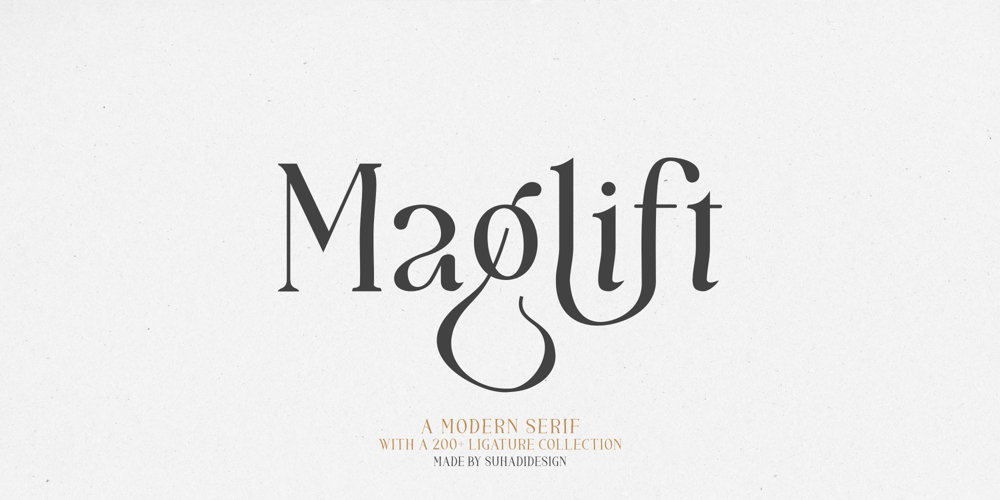
Maglift Font Family was designed by ahmad suhadi and published by suhadidesign. Maglift contains 1 styles and family package options. Maglift serif 200+ ligature collectionsHi ladies and gentlemen!Due to the popularity of the market for modern fonts, I created a serif font that suits your needs. The Maglift font is a modern serif font with 200+ ligatures. is here to become a market favorite. We made this font look elegant, classy, easy to read, stylish, attractive and easy to use. Maglift Font is a great choice for magazine designs, newspapers, fashion, classy designs, newspapers, modern, books, brand names, branding and other projects. The Maglift font is here to enhance the quality of your designs.Follow us for the next classy font creation :)Feature:• Uppercase• Lowercase• Multilingual Support• Numbers and punctuation• 200+ Ligature collections